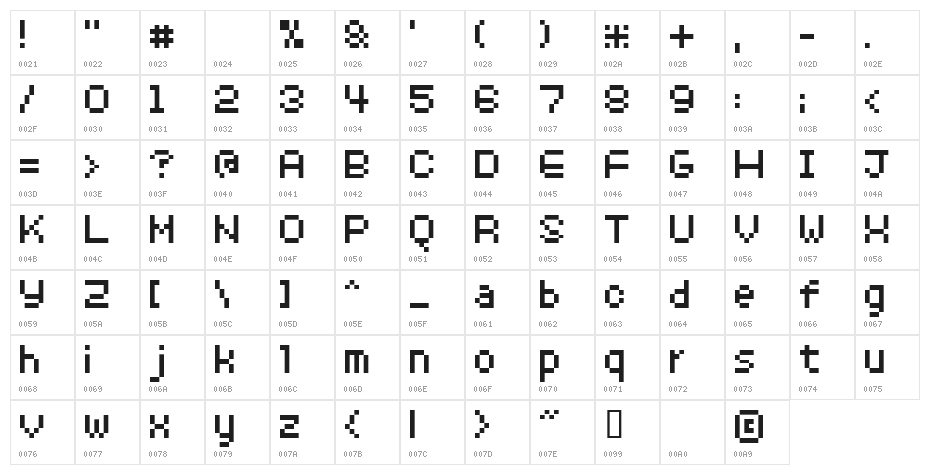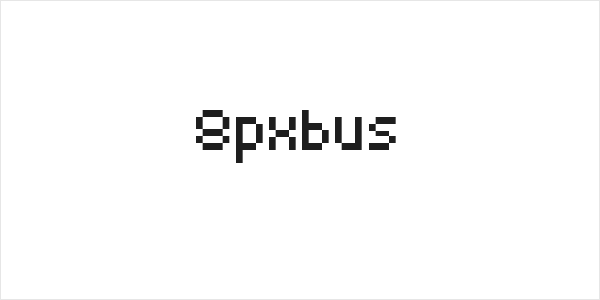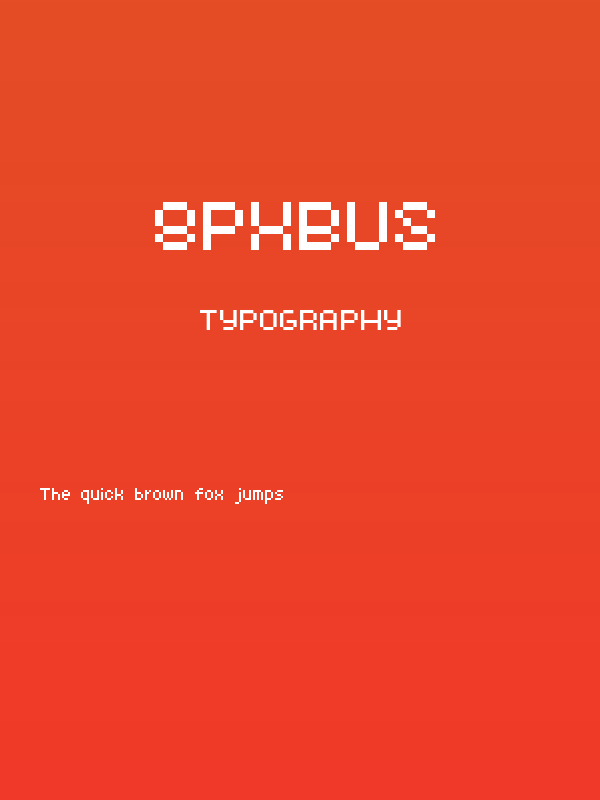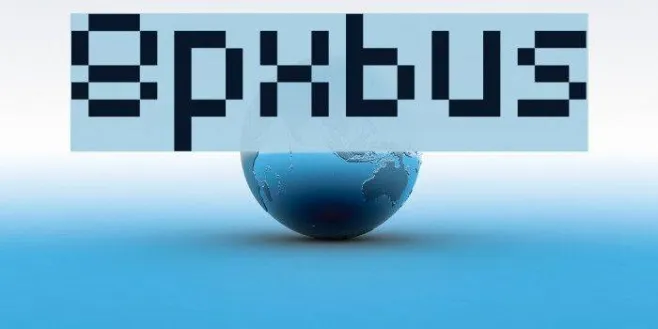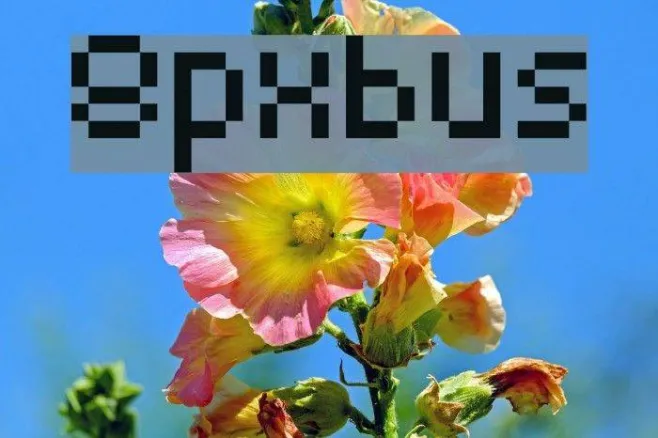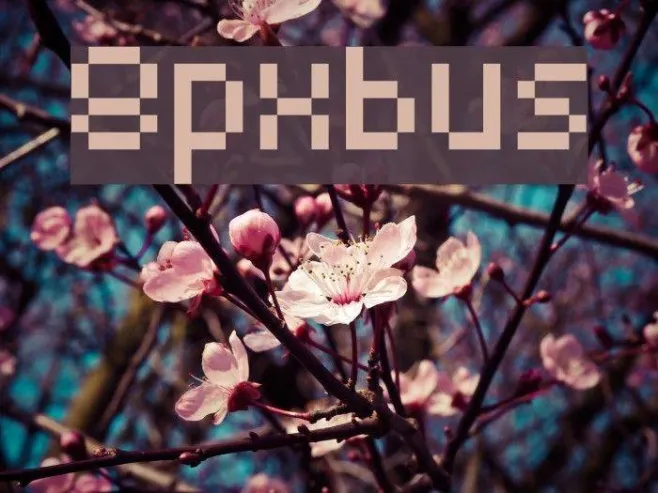
8pxbus Font
8pxbus Description
This font is a pixelated, monospaced typeface that evokes a retro, digital aesthetic reminiscent of early computer screens and video games. Each character is constructed with a grid-like precision, featuring uniform stroke widths that create a blocky, geometric appearance. The uppercase and lowercase letters maintain a consistent height, contributing to a cohesive and orderly look. Numbers and special characters follow the same pixelated style, ensuring visual harmony across all elements. This font's simplicity and clarity make it highly legible, even at small sizes, while its nostalgic charm adds a playful touch to any design.
8PXBUS UPPERCASE
8PXBUS LOWERCASE
8PXBUS OTHER CHARS
| Overall Style | Retro |
| Use Case | Logos, Headlines, Digital displays |
| Proposed Projects | Ideal for retro-themed designs, video game graphics, digital art projects, and tech-related branding. |